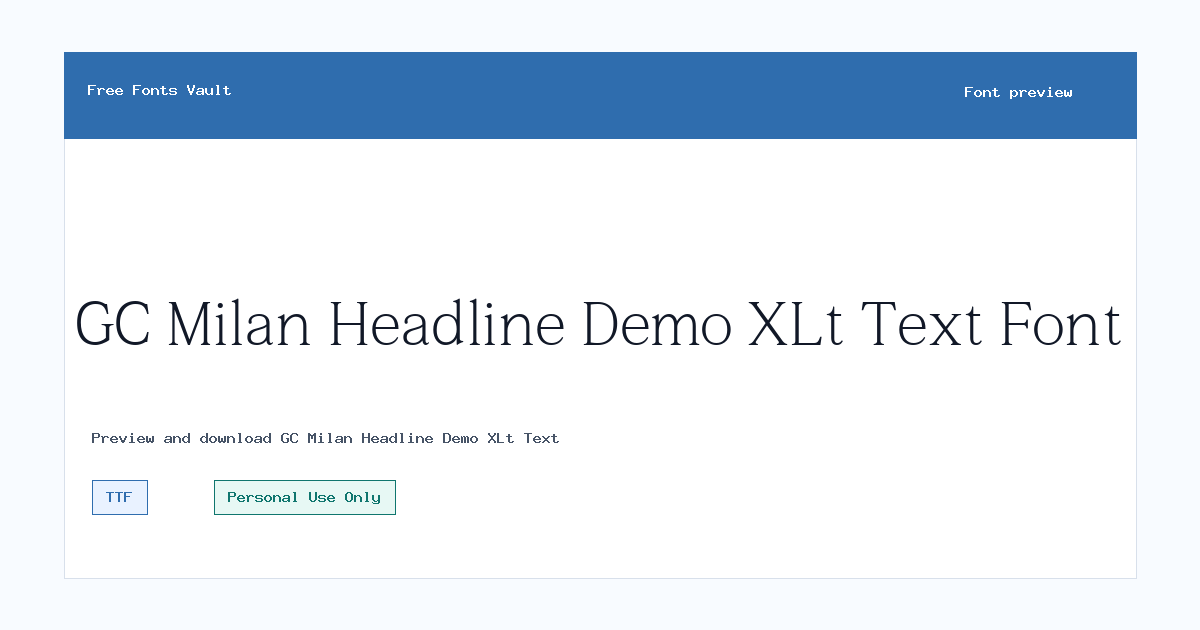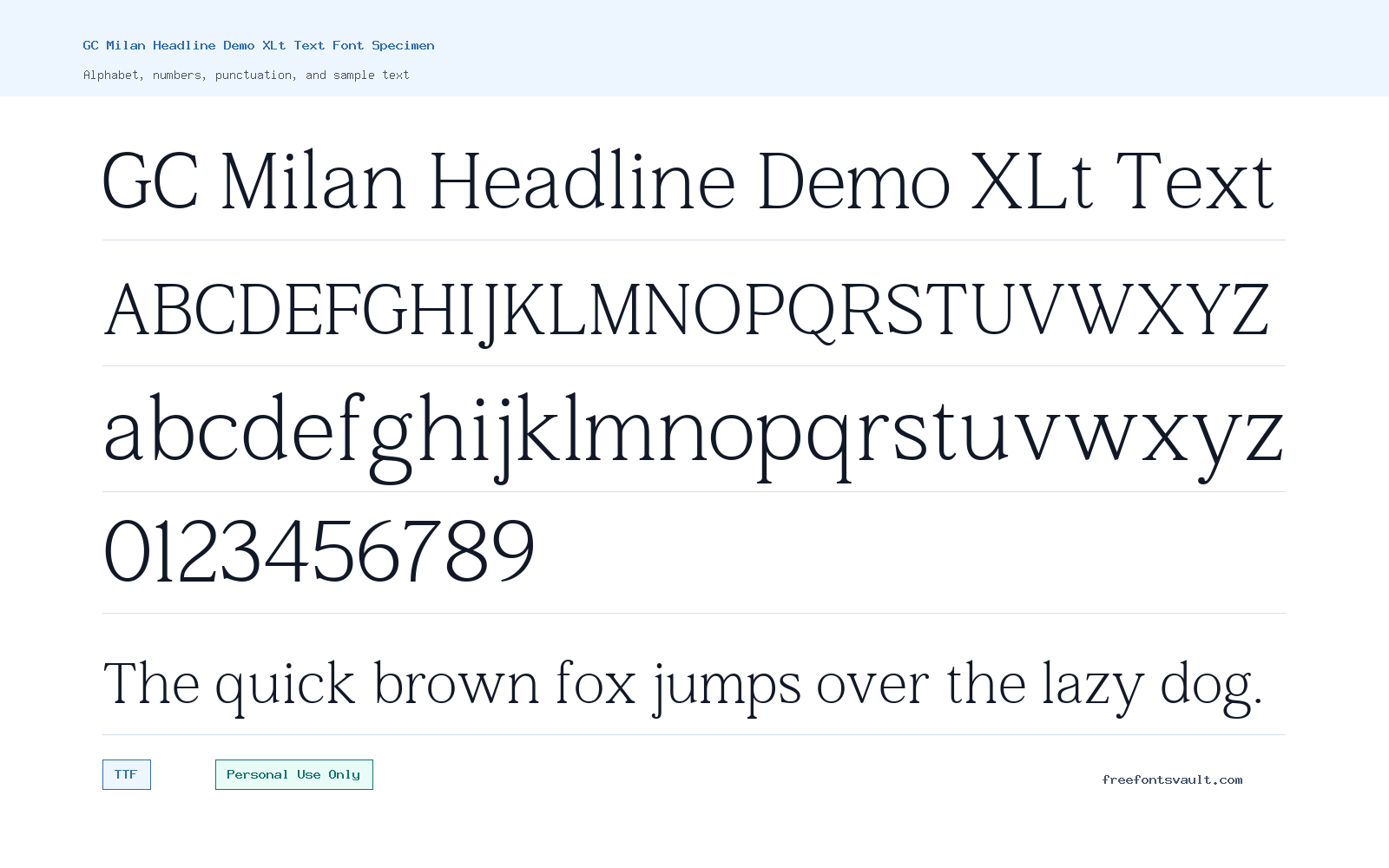
GC Milan Headline Demo XLt Text
- Designer Zainaldi Ibrahim of Glyphonic
GC Milan Headline Demo XLt Text is an extra-light serif demo font with a quiet, refined look. It is best tested in larger sizes where its thin strokes and headline-focused style can stay clear.
GC Milan Headline Demo XLt Text has the delicate feel you would expect from an extra-light serif cut. The letterforms are better suited to titles, display text, elegant headings, quote graphics, invitations, portfolio covers, and short editorial-style layouts than to dense body copy. Because the design is light, its personality comes from space and contrast rather than heavy decoration. Use it when you want a clean serif headline that feels calm and polished without making the layout look busy.
The main thing to watch is readability. Extra-light fonts can become fragile at small sizes, on low-resolution screens, or over detailed backgrounds. In the preview box, test the exact words you plan to use, including uppercase titles, mixed-case headings, numbers, punctuation, and any accented characters you need. Try it on both light and dark backgrounds before downloading. If the strokes begin to fade, increase the size, add letter spacing carefully, or use it only for a short title while choosing a sturdier companion font for paragraphs.
- Extra-light serif headline style with a refined, low-contrast presence
- Large headlines, title cards, posters, invitations, and quote graphics
The font is credited to Zainaldi Ibrahim of Glyphonic.
Use GC Milan Headline Demo XLt Text sparingly and give it room. Pair it with a more readable sans serif or text serif for body copy, captions, navigation, and long descriptions. Avoid placing it over busy photos unless you add enough contrast behind the text. For best results, preview it at the final display size and check whether the thin strokes remain visible on mobile screens.
What kind of font is GC Milan Headline Demo XLt Text?
It is an extra-light serif demo font intended for headline-style use, especially short titles and display text.
Can I use it for body text?
It is not the safest choice for long reading. The extra-light strokes work better at larger sizes, so use a stronger companion font for paragraphs.